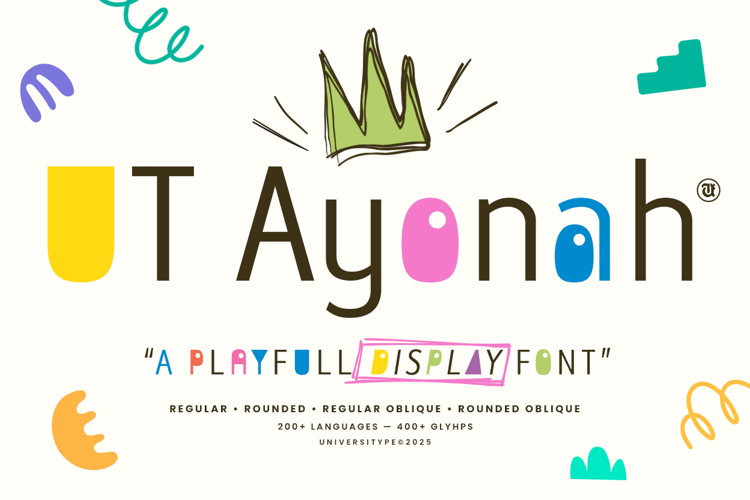
UT Ayonah Font
UT Ayonah was inspired by the idea of friendly communication. The goal was to design a typeface that feels kind, open, and optimistic. Rounded forms reflect softness and warmth, while the subtle irregularities give each letter its own voice. It’s meant to feel human, not mechanical, and expressive without trying too hard.